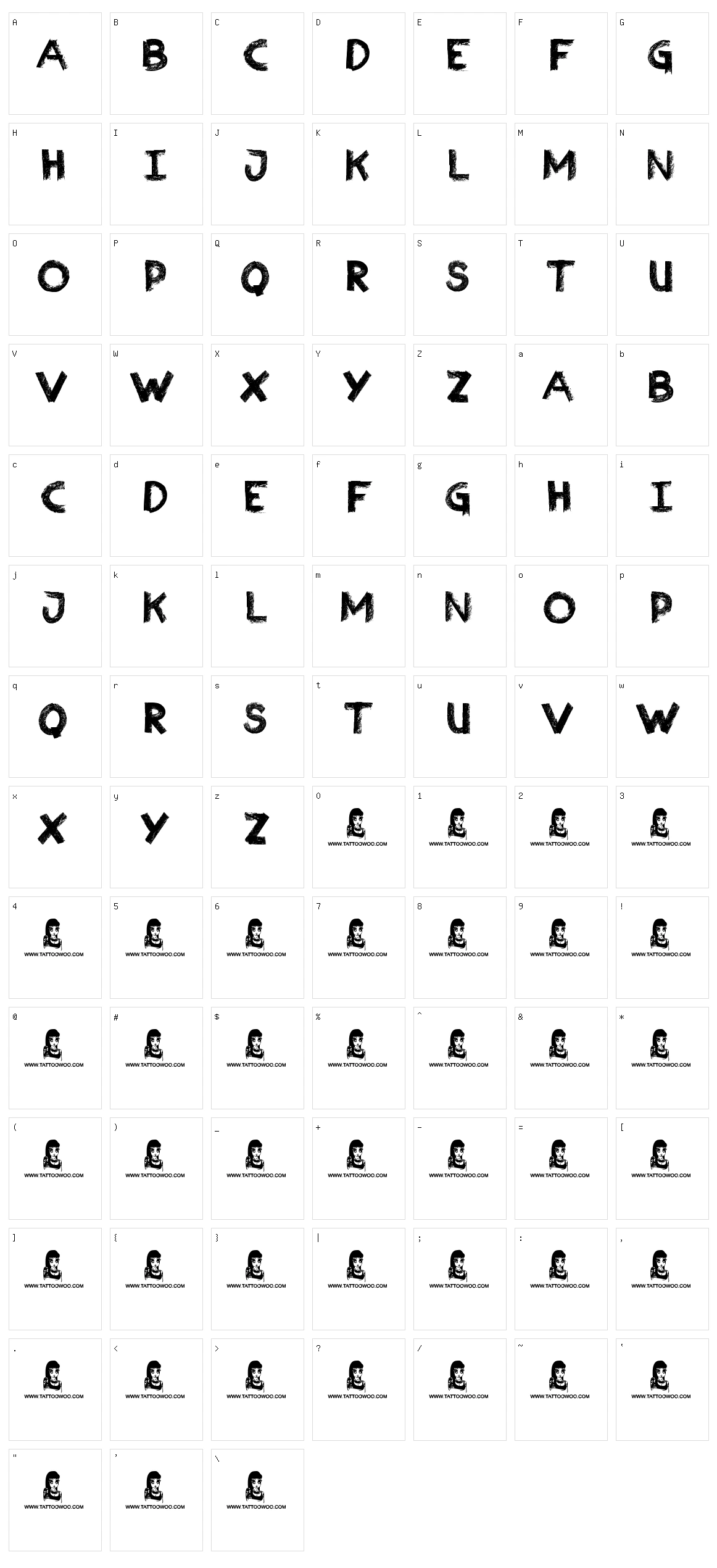
The free font Charcoal is carefully designed by JSH creates, showcasing a thoughtful balance of creativity and usability and falls under the Eroded font style. When you download the ZIP file, it contains only 364.74 KB of font files, making it lightweight and quick to download. Please review the license details below to understand permitted usage and distribution rights. If license information is not available, we recommend using this font for personal projects only or contacting the author directly for commercial usage permissions.